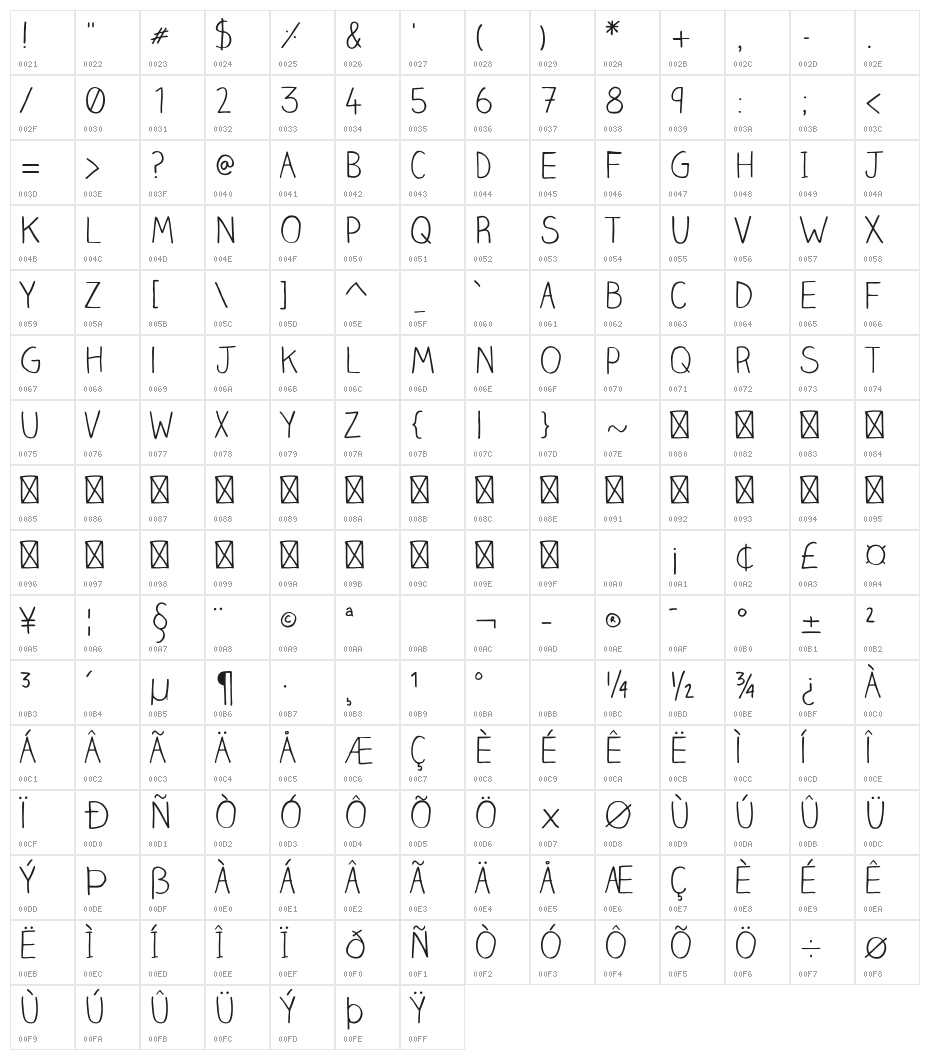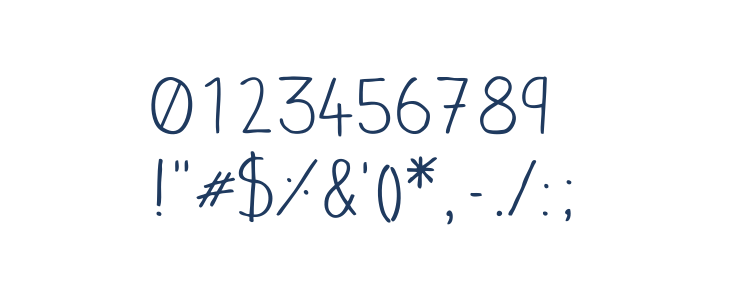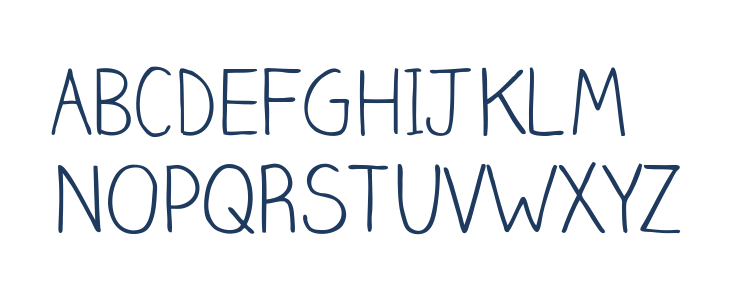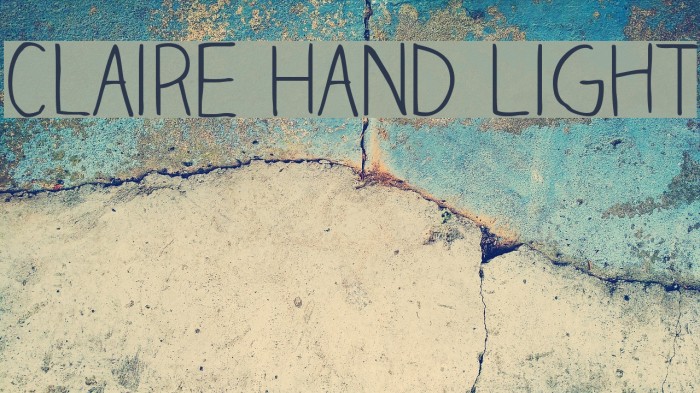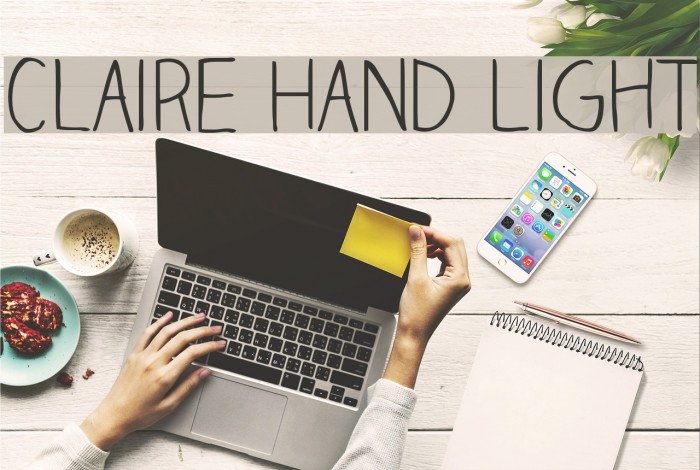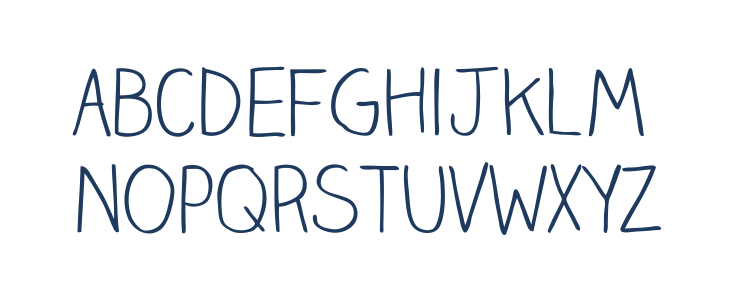
Claire Hand Light Font
Claire Hand Light Description
This font features a casual, handwritten style that exudes a friendly and approachable vibe. The characters are slightly irregular, with a playful and informal appearance. The strokes are consistent in weight, giving it a uniform look while maintaining a hand-drawn feel. The letters are well-spaced, ensuring readability, and the overall design is clean and uncluttered. This font is ideal for projects that require a personal touch, such as invitations, greeting cards, or informal branding.
| Use Case | Headlines, Informal text, Personal projects |
| Proposed Projects | Ideal for invitations, greeting cards, personal branding, and informal communications. |